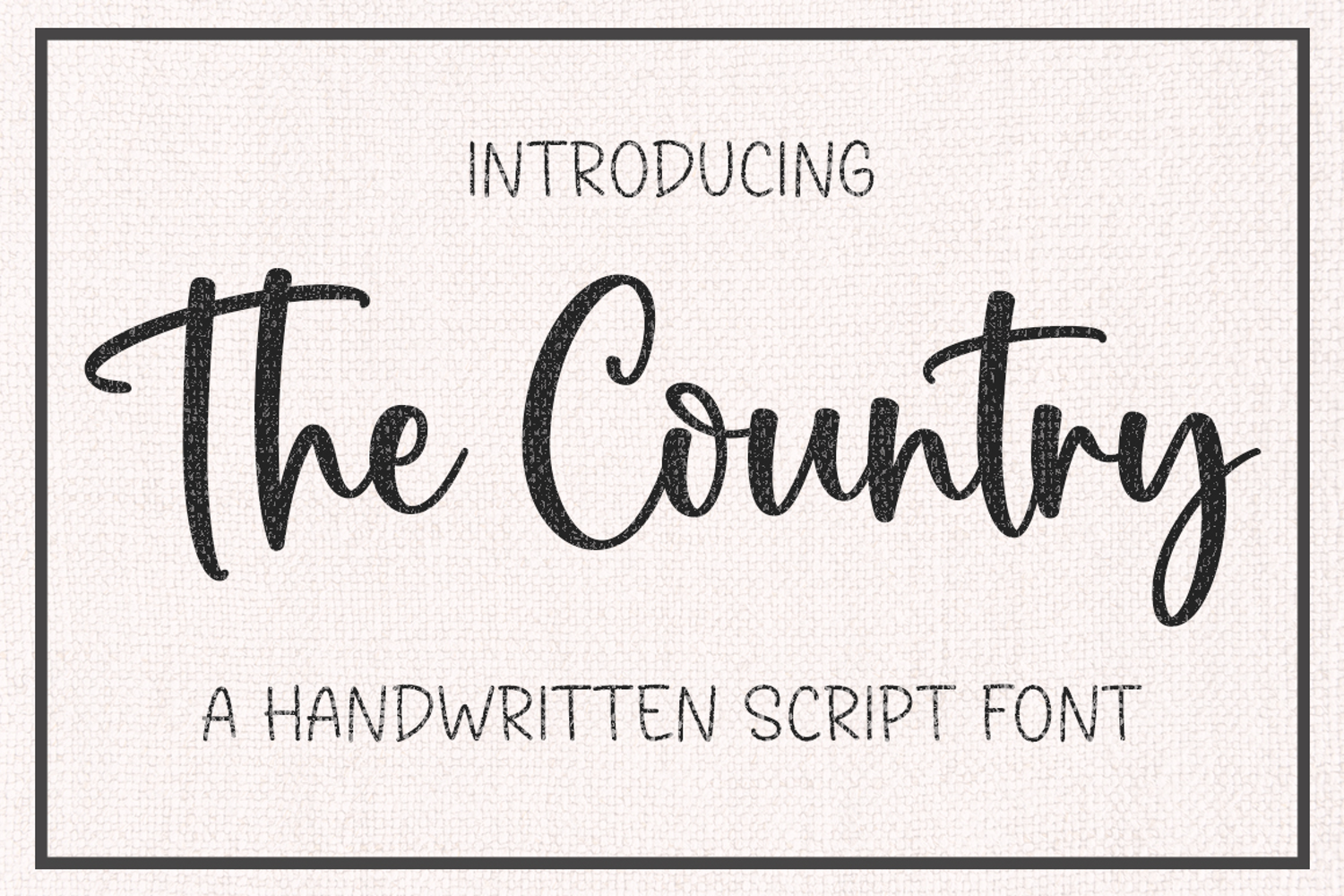
The Country
The Country is a delicate, elegant, and flowing handwritten font. It has beautiful and well-balanced characters and as a result, it matches a wide pool of designs.
Script Handwritten Font